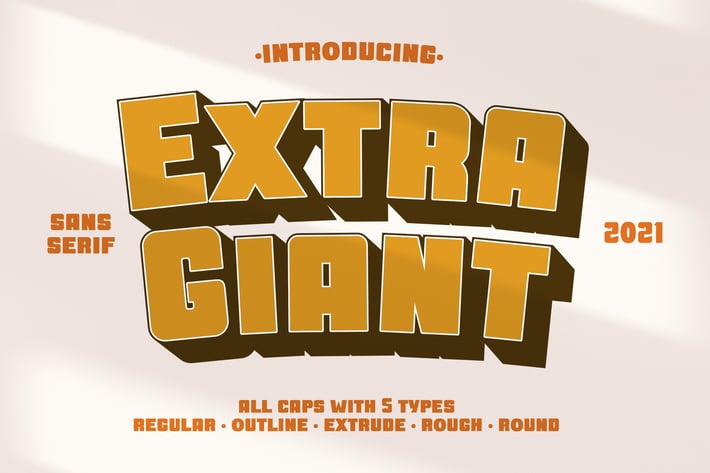
Extra Giant Advertisement Font
extra giant is font family that contain 4 styles font. Perfect for any company project like logo, business advertisement, clothing, merchandise, and posters